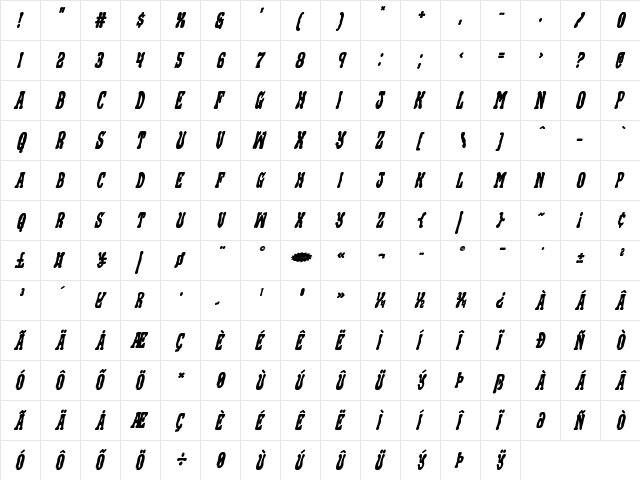
Black Gunk Bold Italic Font Preview
Design Context for Black Gunk Bold Italic Typeface
Black Gunk Bold Italic offers clean, dependable letterforms without strong stylistic allegiance, making it a practical choice for designers who need flexibility. Its italic angle brings a sense of urgency and motion to the letterforms. Its bold stroke weight gives it real presence on the page.
Pro Tip: Try Black Gunk Bold Italic for annotation and caption copy alongside an upright companion — the contrast in angle creates a dynamic but ordered typographic system.